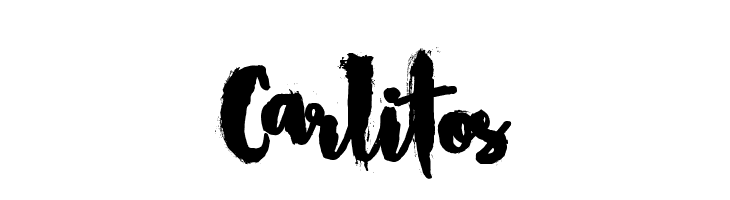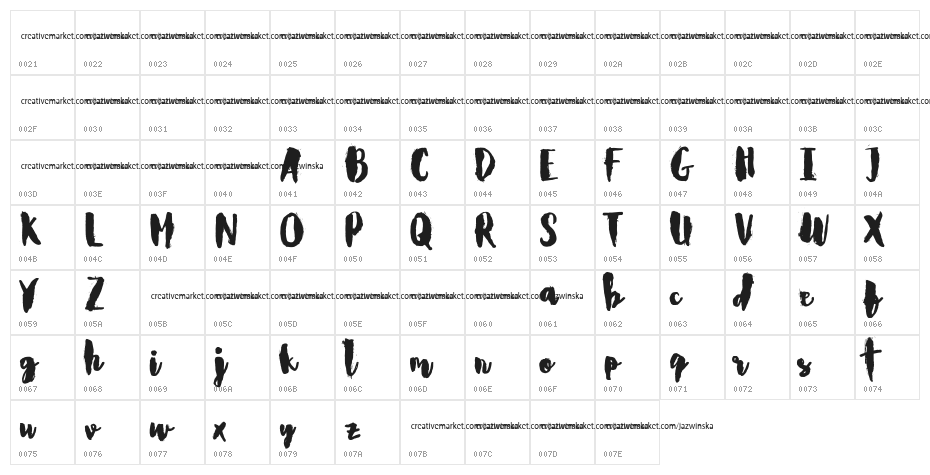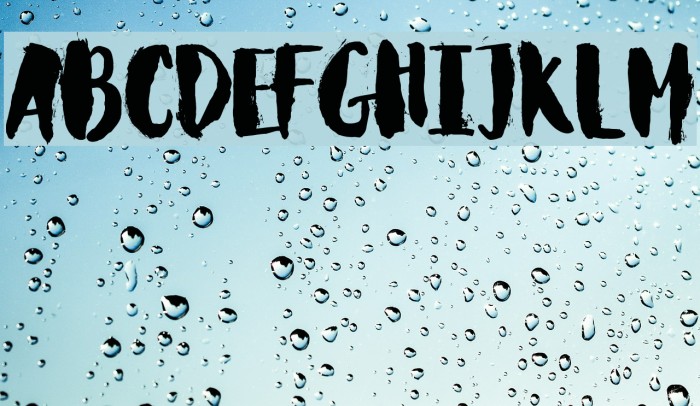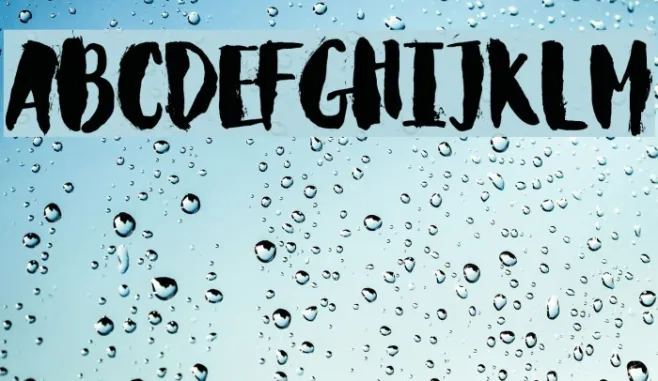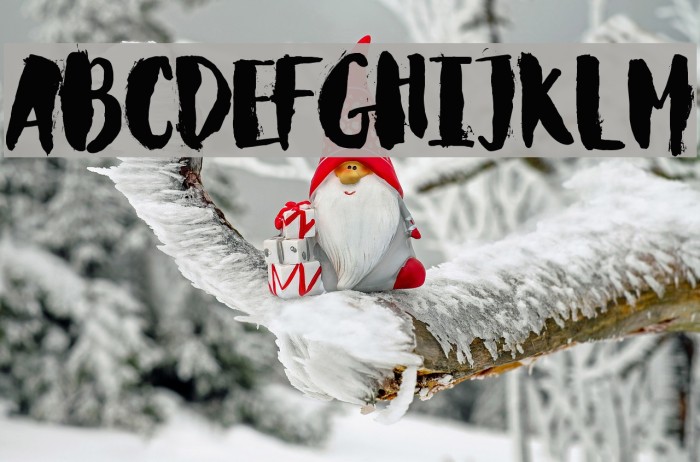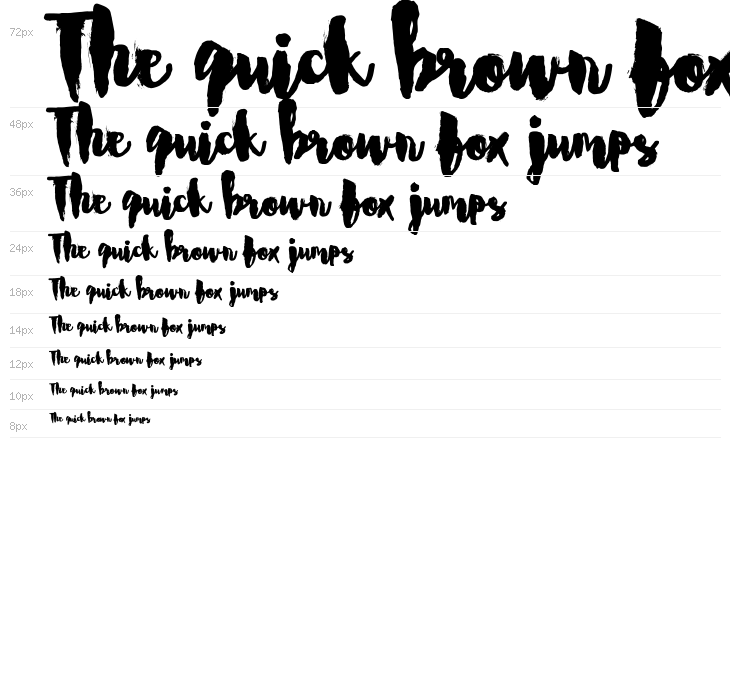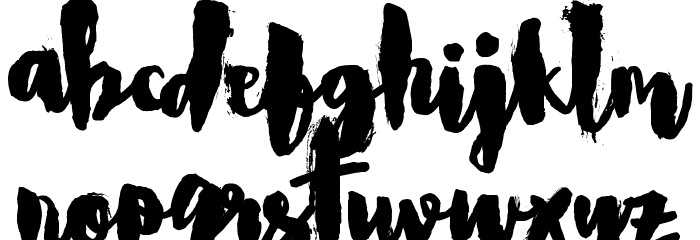
Carlitos Font
Carlitos Description
This font features a bold and expressive brush style, characterized by its dynamic and energetic strokes. The letters have a hand-painted appearance, with varying thicknesses that create a sense of movement and spontaneity. The uppercase letters are bold and prominent, while the lowercase letters maintain a consistent flow, enhancing the overall artistic feel. The font's rough edges and textured appearance add to its raw and organic aesthetic, making it ideal for projects that require a touch of creativity and individuality. The numbers and special characters are equally expressive, maintaining the font's unique style throughout.